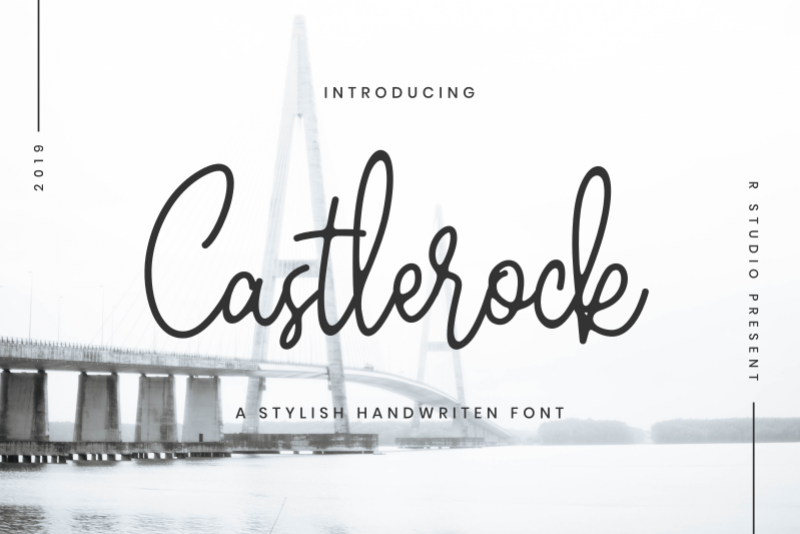
Castlerock
Castlerock is a Handwritting script and unique character! it's perfect for logos, name card, magazine layouts, invitations, headers, or even large-scale artwork.